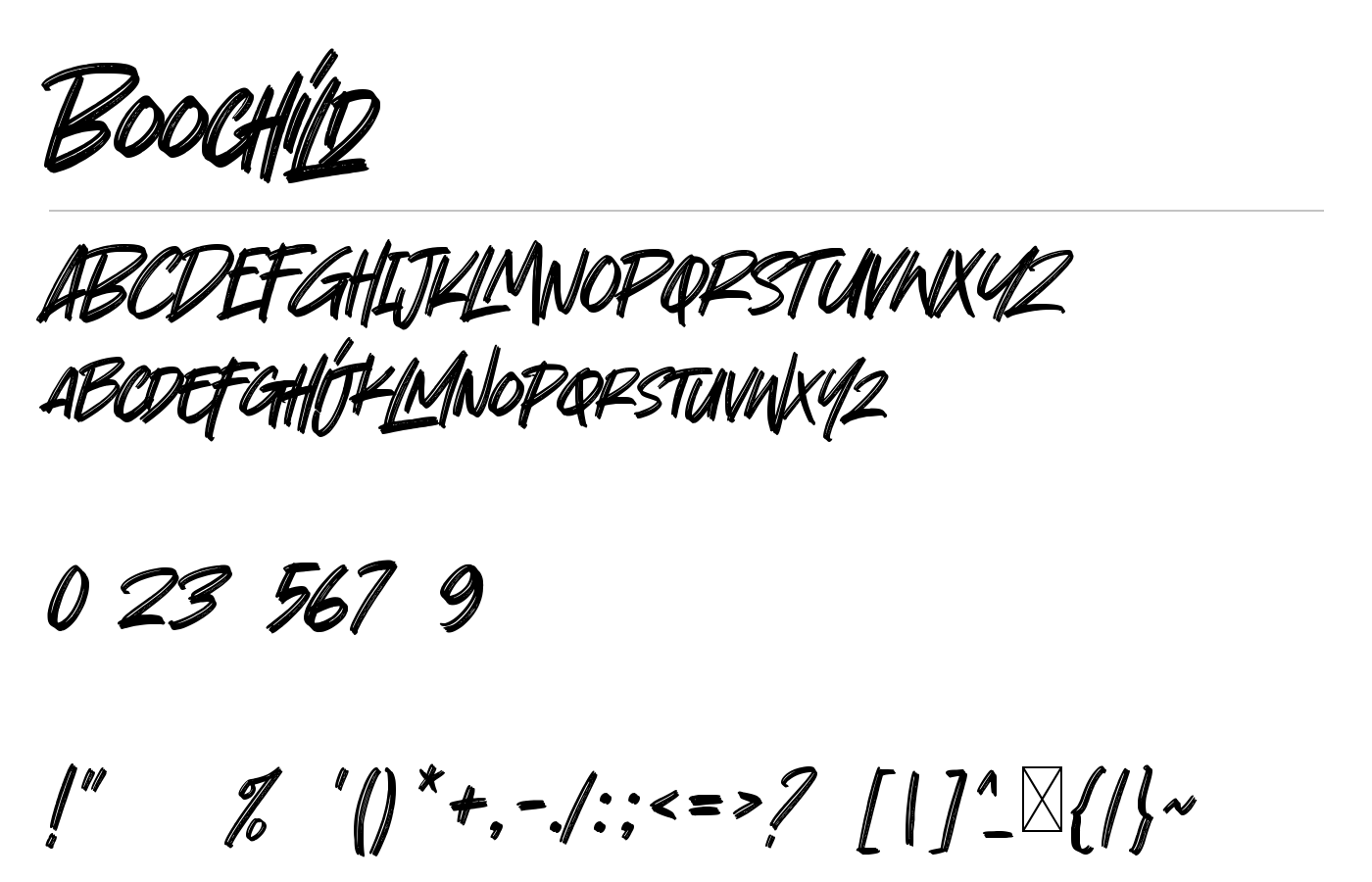
Boochild is a bold, expressive handwritten font featuring dynamic, brush-like strokes that create an energetic and informal feel. With its tall, slightly condensed letterforms and a lively texture, it works perfectly for creative projects needing a youthful, edgy vibe, such as branding, posters, and social media headlines. Its unique, casual style adds a personal touch that grabs attention and conveys a fun, modern personality.
Boochild Font
About Boochild Font